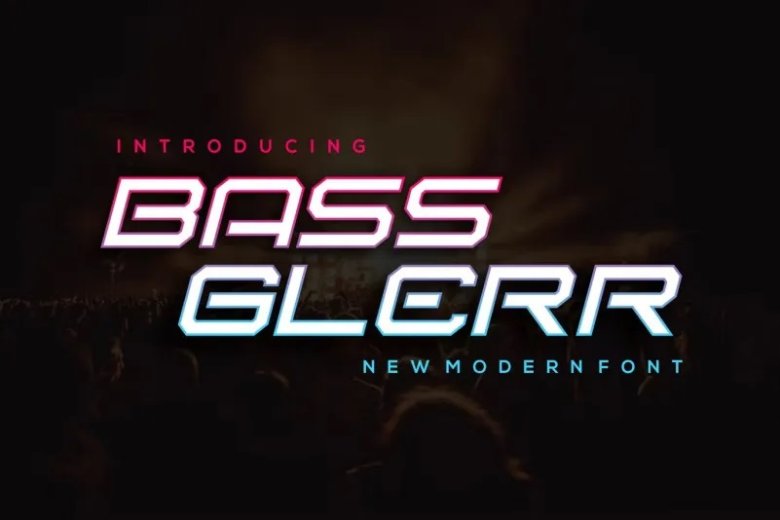
BassGlerr Font
BassGlerr Font- Moder Font is a bold and authentic display font. It suitable for every branding project like a logo, t-shirt print, esport, and many more outstanding in a wide range of contexts.
BassGlerr Display Font